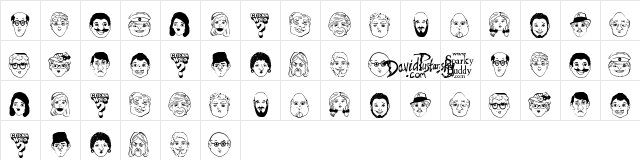
Guess Who? Regular
| Foundry | Sparky Buddy Productions |
| Designer | David Pustansky |
Design Context for Guess Who? Typeface
Guess Who? is a composed and adaptable typeface that performs quietly and consistently across a wide range of design contexts.